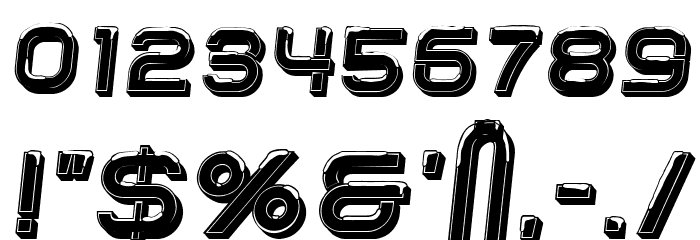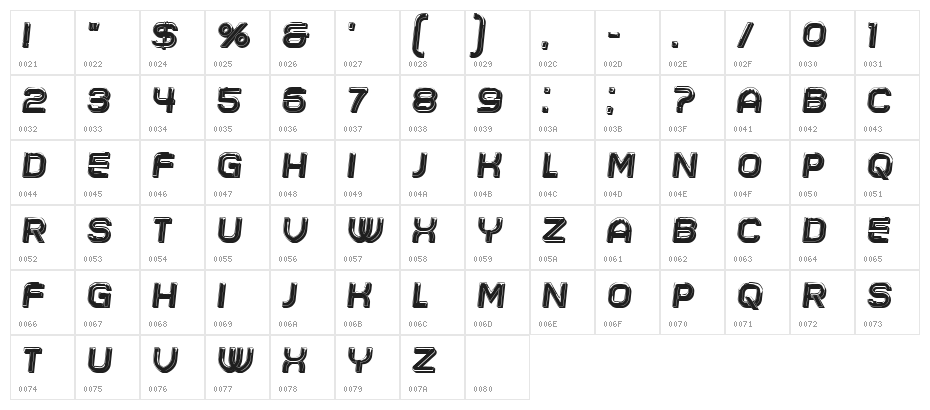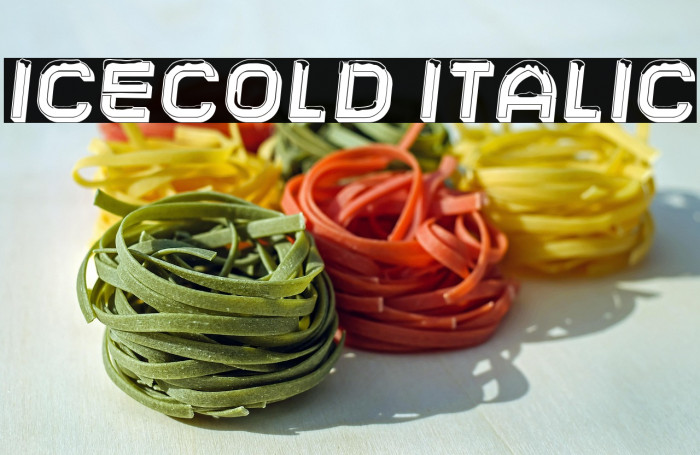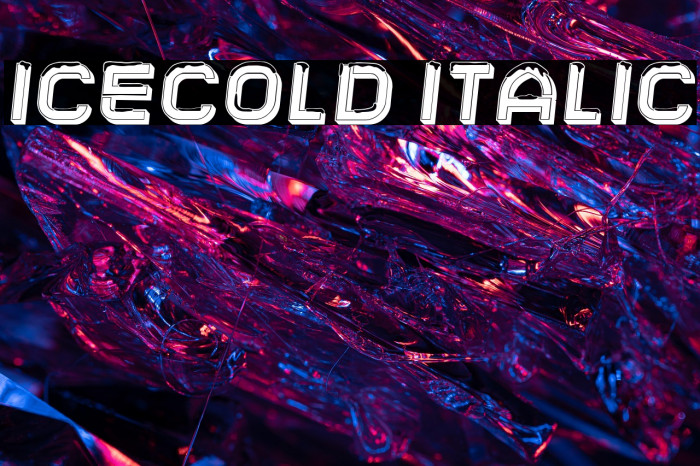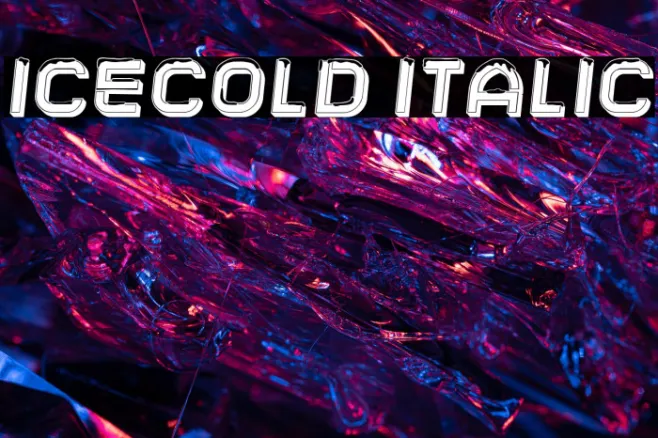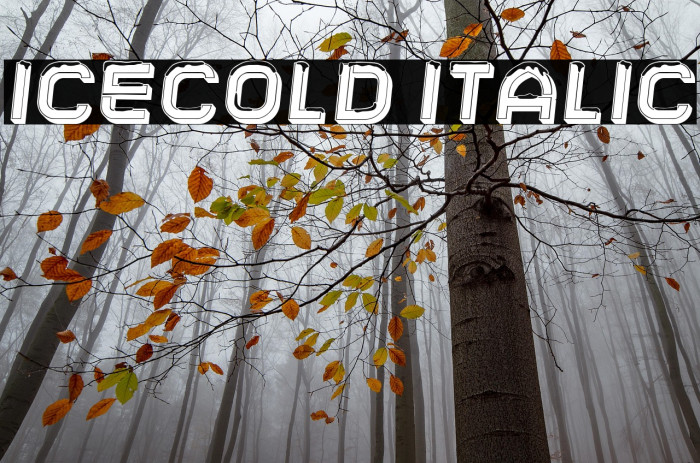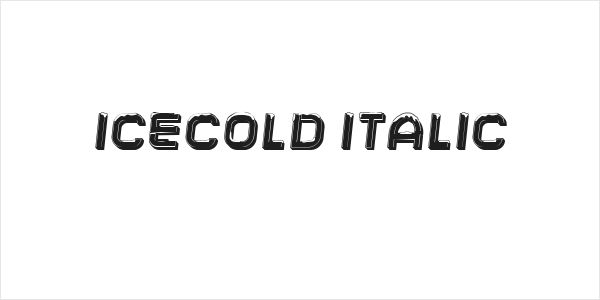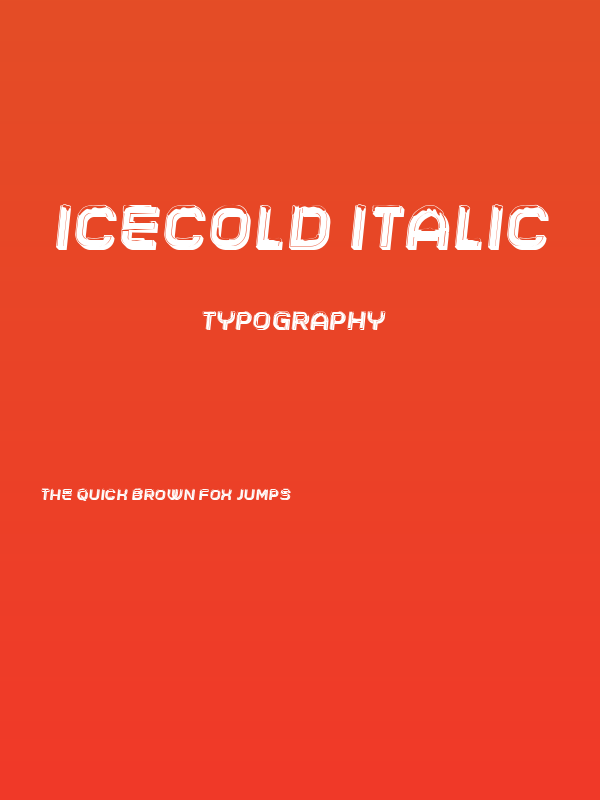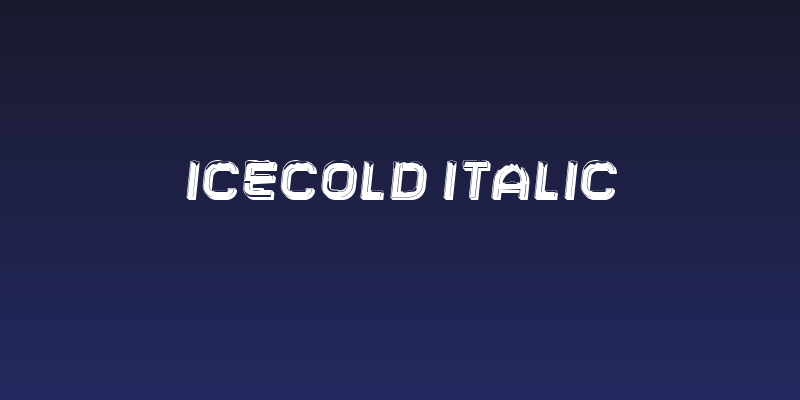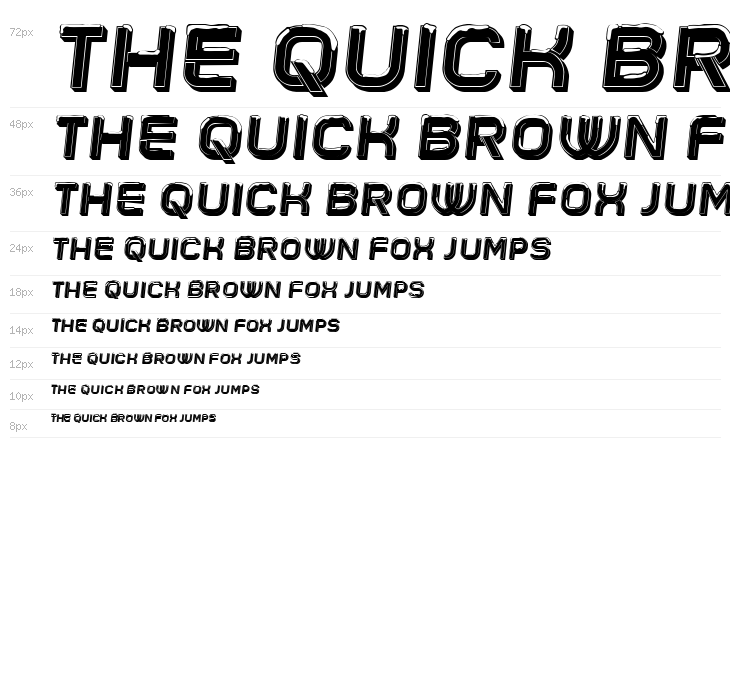
Icecold Italic Font
Icecold Italic Description
This font features a bold and dynamic style with a three-dimensional effect that gives it a striking appearance. The characters are outlined with a thick black shadow, creating a sense of depth and movement. The italicized form adds a sense of speed and modernity, making it ideal for attention-grabbing designs. The uppercase and lowercase letters maintain a consistent style, with rounded edges and a slightly condensed form. The numerals and special characters follow the same design principles, ensuring uniformity across all elements.